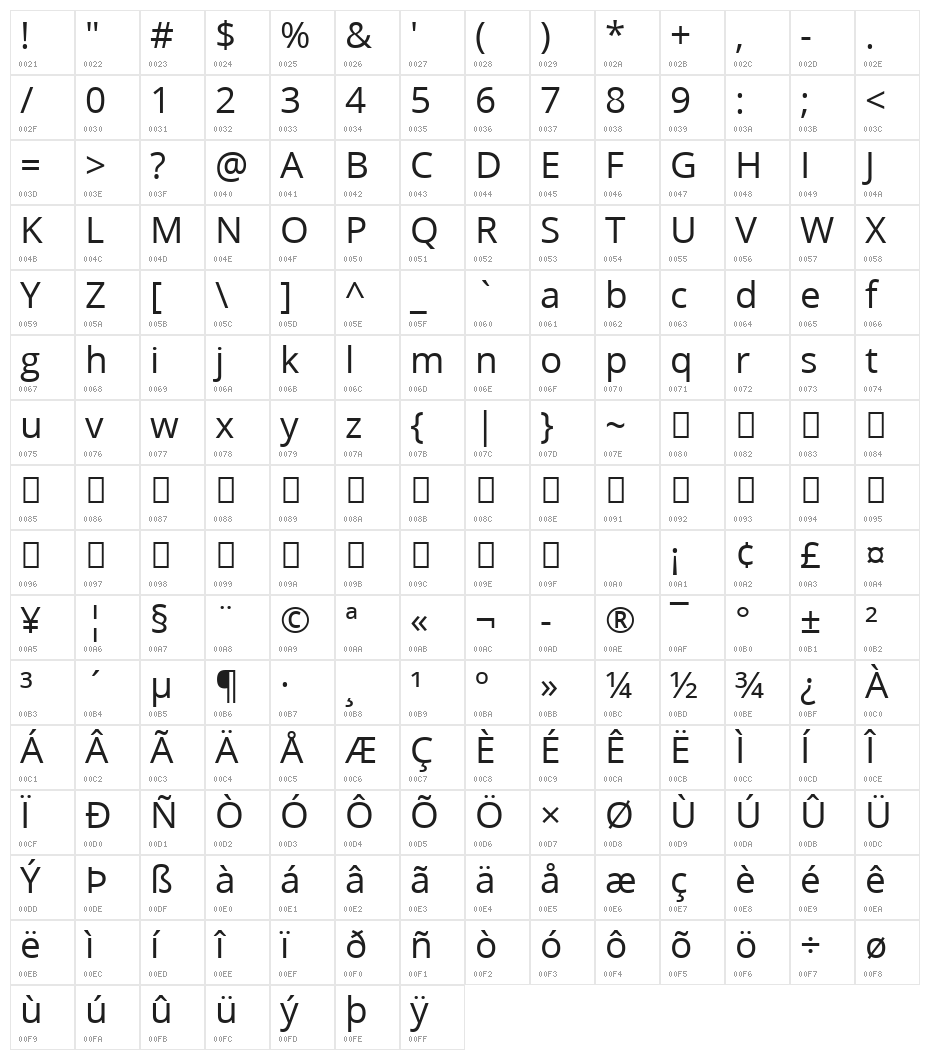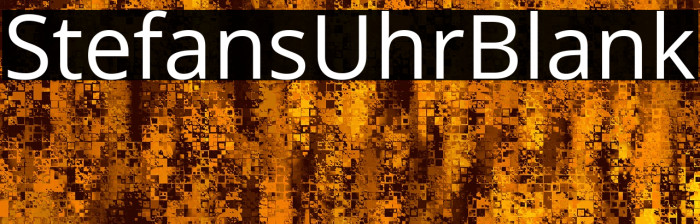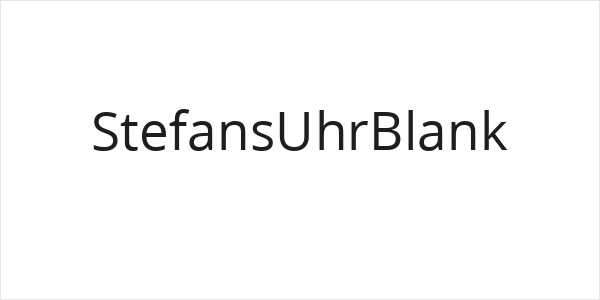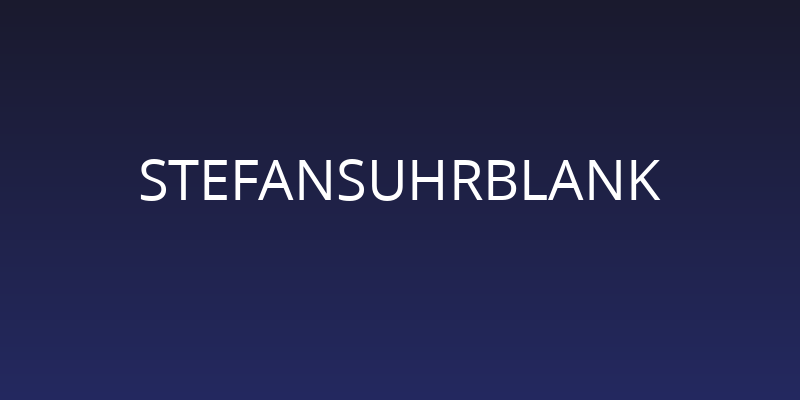
StefansUhrBlank Font
StefansUhrBlank Description
This typeface features a clean and modern sans-serif design, characterized by its simplicity and readability. The letters are evenly spaced with a consistent stroke width, providing a balanced and harmonious appearance. The uppercase letters are bold and assertive, while the lowercase letters maintain a friendly and approachable feel. Numbers and special characters are designed with clarity in mind, ensuring they are easily distinguishable. The overall aesthetic is minimalistic, making it suitable for a wide range of applications where clarity and modernity are desired.
| Proposed Projects | Ideal for corporate branding, web design, user interfaces, and print media where clarity and modern aesthetics are essential. |